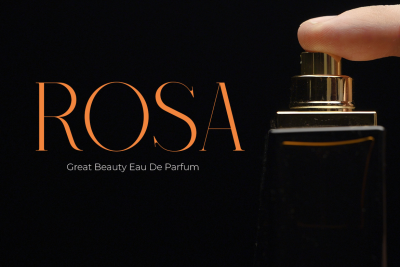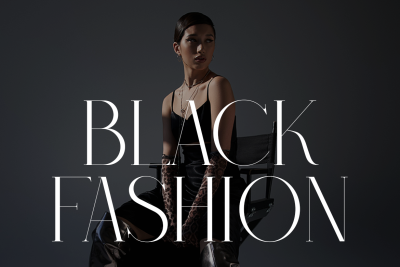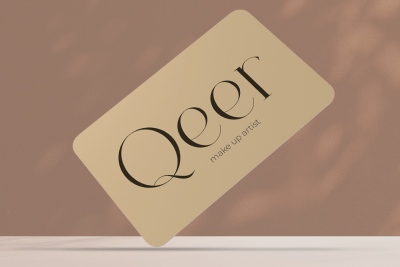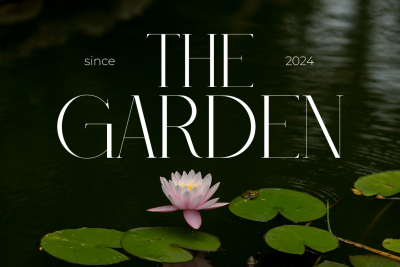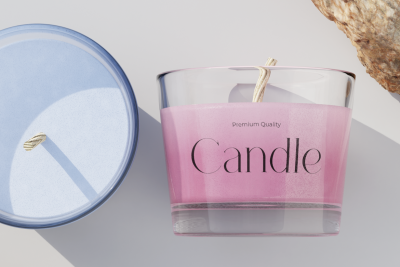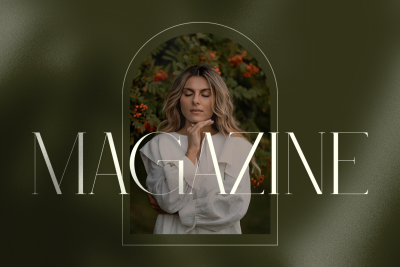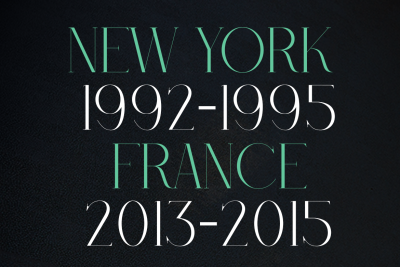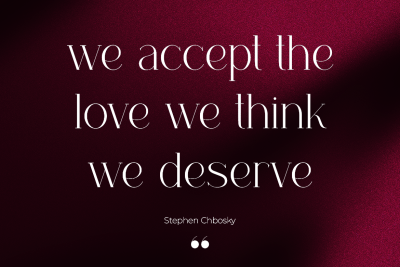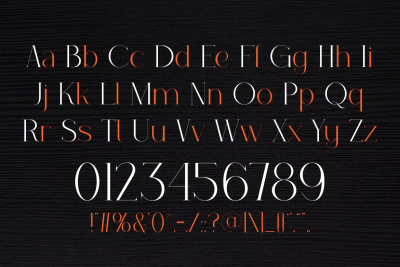
Instagram Font JANEETA is a modern serif typeface that seamlessly blends timeless elegance with a contemporary flair. Its tall, slender proportions and subtle curves create a refined look, ideal for conveying luxury and professionalism. The high-contrast strokes and sharp details draw attention while maintaining a perfect balance between simplicity and complexity. JANEETA adapts effortlessly to both minimalist and bold designs, making it a versatile choice for high-end branding, editorial layouts, and digital content.
The fontโs craftsmanship shines through its meticulously designed letterforms, which exude confidence and grace. Every curve and serif has been carefully shaped to deliver clarity and aesthetic appeal across various mediums. Whether youโre crafting a logo, designing a website, or curating an Instagram feed, JANEETA elevates your projects with sophistication and exclusivity. Its clean yet striking design ensures your work stands out and leaves a lasting impression. Furthermore, JANEETAโs adaptability makes it an essential tool for projects that require both beauty and functionality.
Who Should Use Instagram Font JANEETA?
Instagram Font JANEETA is ideal for professionals and creatives who value elegance, versatility, and timeless design. Its adaptable nature makes it a powerful choice for diverse applications across industries:
- Social Media Influencers & Content Creators: JANEETA enhances Instagram posts, stories, and reels with its polished and sophisticated aesthetic. Your content will look professional and captivating.
- Luxury Brands & Entrepreneurs: High-end businesses can use JANEETA to emphasize exclusivity and sophistication. Whether for fashion, jewelry, or premium services, this font complements your brand identity.
- Creative Professionals: Graphic designers, brand strategists, and web developers can rely on JANEETA for a refined and impactful style. It works beautifully for logos, packaging, web design, and editorial layouts.
- Event Planners & Wedding Designers: JANEETAโs graceful design adds elegance to invitations, menus, and event materials. Itโs perfect for weddings, galas, or formal celebrations.
Additionally, JANEETA is an excellent choice for those seeking to create a lasting impression through typography. Its ability to combine modernity with timeless appeal ensures that your designs remain relevant and stylish. For both digital and print materials, JANEETA delivers results that exude confidence and refinement.